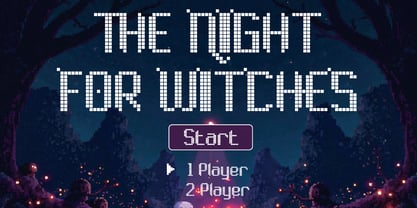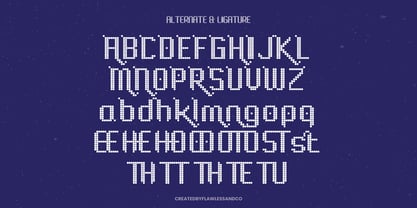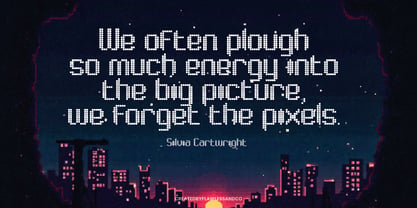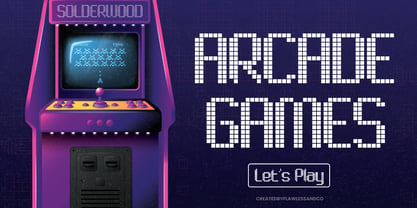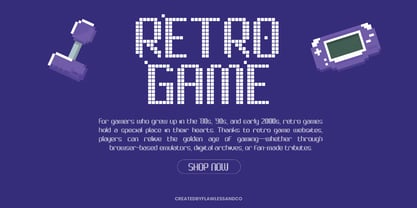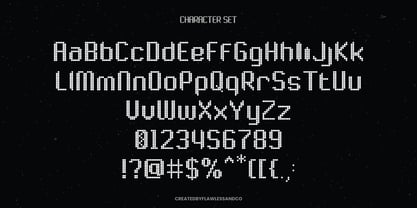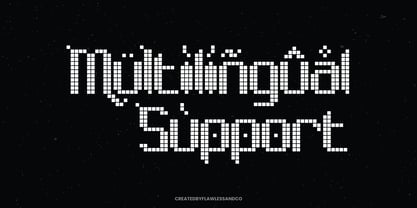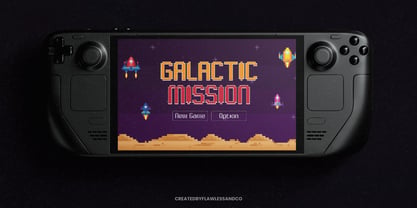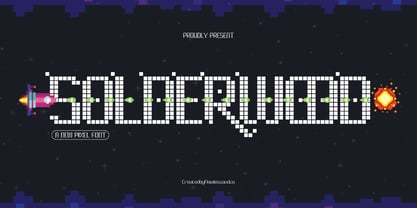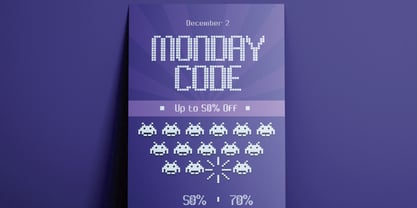
Solderwood
by Flawlessandco
The Solderwood Font Family was designed by Achmad Yani and published by Flawlessandco. Solderwood contains 1 styles. More about this family
Solderwood is a bold and retro-inspired pixel font that captures the spirit of classic arcade games and 8-bit graphics. Designed with blocky, grid-based precision, it delivers a nostalgic yet fresh digital look that's perfect for game titles, pixel art projects, posters, and tech-themed visuals. The font includes alternate ligatures for added character variety, enhancing your creative flexibility. Whether you're building a space-themed design or channeling retro video game vibes, Solderwood brings pixel-perfect style to your layout.
Multilingual, Uppercase alphabet A-Z, Lowercase alphabet a-z, Numbers 0-9, Some punctuation, Alternates & Ligatures